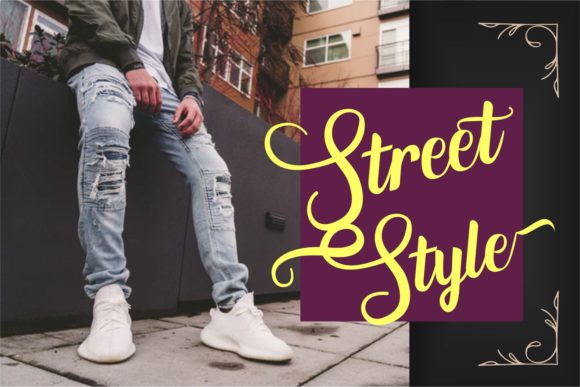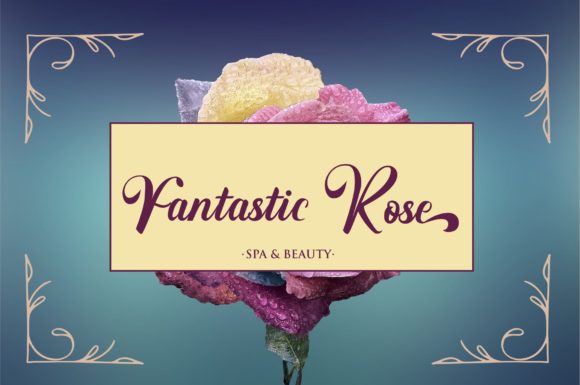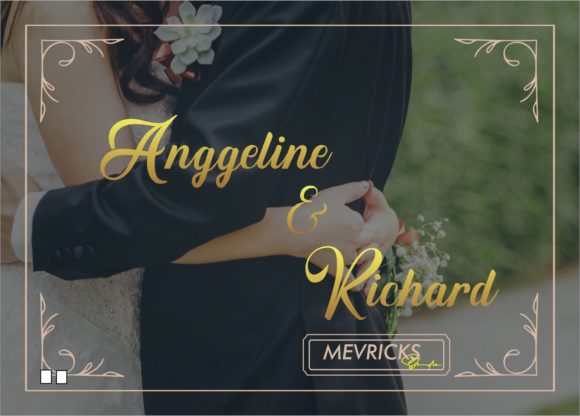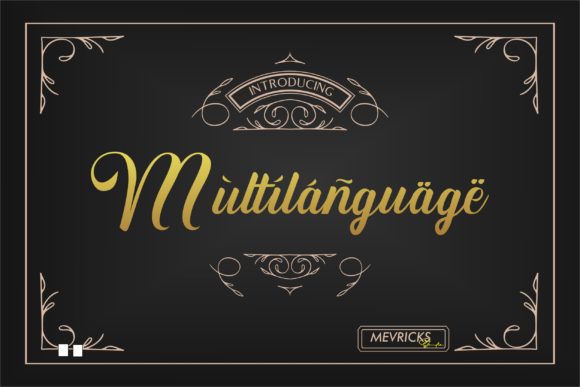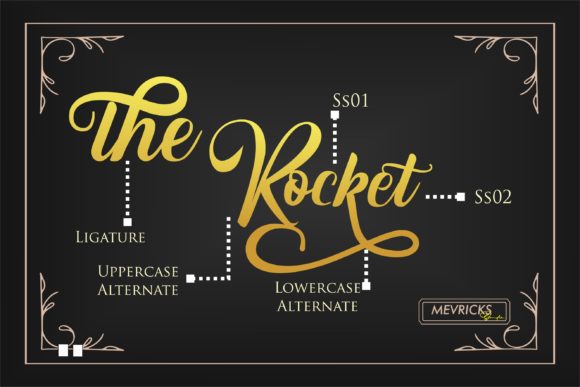
Introduction to Pandai Sikek Script Font
As designers, we’ve all been there – staring at a blank canvas, trying to come up with the perfect font to bring our creative project to life. But sometimes, it’s not just about finding the right font, it’s about discovering a unique design resource that adds an extra layer of depth and personality to our work.
Enter the Pandai Sikek Script Font, a beautiful and intricate handicraft font inspired by the traditional woven fabric of West Sumatra, Indonesia. With its hand-lettered style and high-quality design, this font is a must-have for any designer looking to add a touch of authenticity and elegance to their work.
Key Features of Pandai Sikek Script Font
- Pandai Sikek Script Font is a high-quality design resource ideal for creative projects, offering a unique and elegant touch.
- This script font features a transparent background, allowing for seamless integration with any design or artwork.
- The font size is scalable, allowing designers to adjust the size to suit their specific creative project needs.
- Pandai Sikek Script Font is designed at a high resolution, ensuring crisp and clear typography even at large font sizes.
- Its unique characteristics make it perfect for adding a personal touch to wedding invitations, greeting cards, and other special occasion designs.
Honest Review: Pandai Sikek Script Font
I recently stumbled upon the Pandai Sikek Script Font, and I must say it’s been a game-changer for my creative projects. As a designer, I’m always on the lookout for high-quality design resources that can help me stand out. The Pandai Sikek Script Font definitely fits the bill.
- ✨ Elegant and sophisticated design aesthetic that’s perfect for weddings, invitations, and other high-end projects.
- ✨ Highly customizable with a wide range of font styles and sizes to choose from.
- ✨ Transparent background option, allowing for seamless integration into any design.
- ⚠️ Limited support for non-Latin scripts, which may be a concern for designers working with non-English clients.
- ⚠️ Some users may find the font a bit too ornate, which may not be suitable for all design projects.
Overall, I’m thoroughly impressed with the Pandai Sikek Script Font. Its high-quality design and versatility make it an excellent addition to any designer’s toolkit. If you’re looking for a unique and sophisticated font for your creative project, I highly recommend giving it a try.
How to Use Pandai Sikek Script Font
Pandai Sikek Script Font is a high-quality, free download design resource ideal for creative projects that require a unique and elegant touch. This versatile font is perfect for designers looking for a distinctive script font to add to their collection.
Tips for Getting the Most Out of Pandai Sikek Script Font
To get the most out of Pandai Sikek Script Font, consider the following tips:
- Use the font with a transparent background to create a sense of depth and elegance.
- Pair the font with a clean and simple design to let the font be the focal point.
Pandai Sikek Script Font is ideal for a variety of design projects, including: